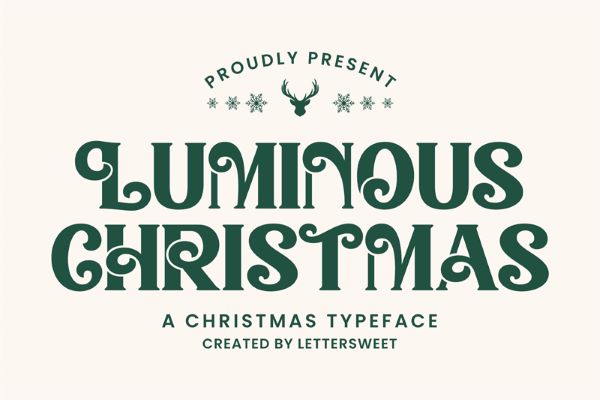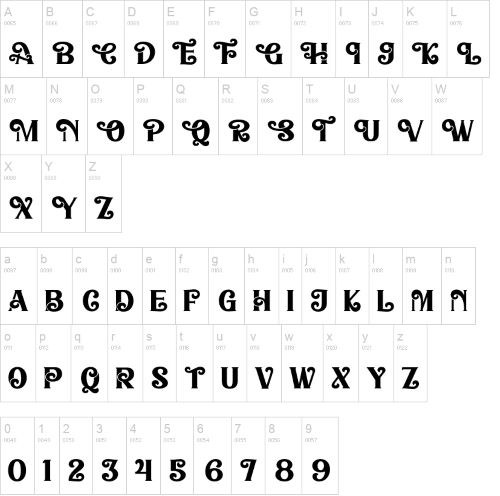
Luminous Christmas Font
Luminous Christmas Font is a festive decorative typeface that blends elegance with a joyful holiday glow. Its smooth curves and charming details make it ideal for Christmas cards, invitations, gift tags, seasonal branding, and winter-themed designs. Luminous Christmas adds warmth, sparkle, and a magical seasonal atmosphere to any creative project.